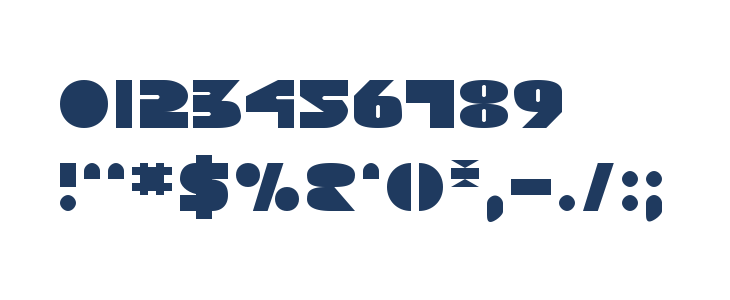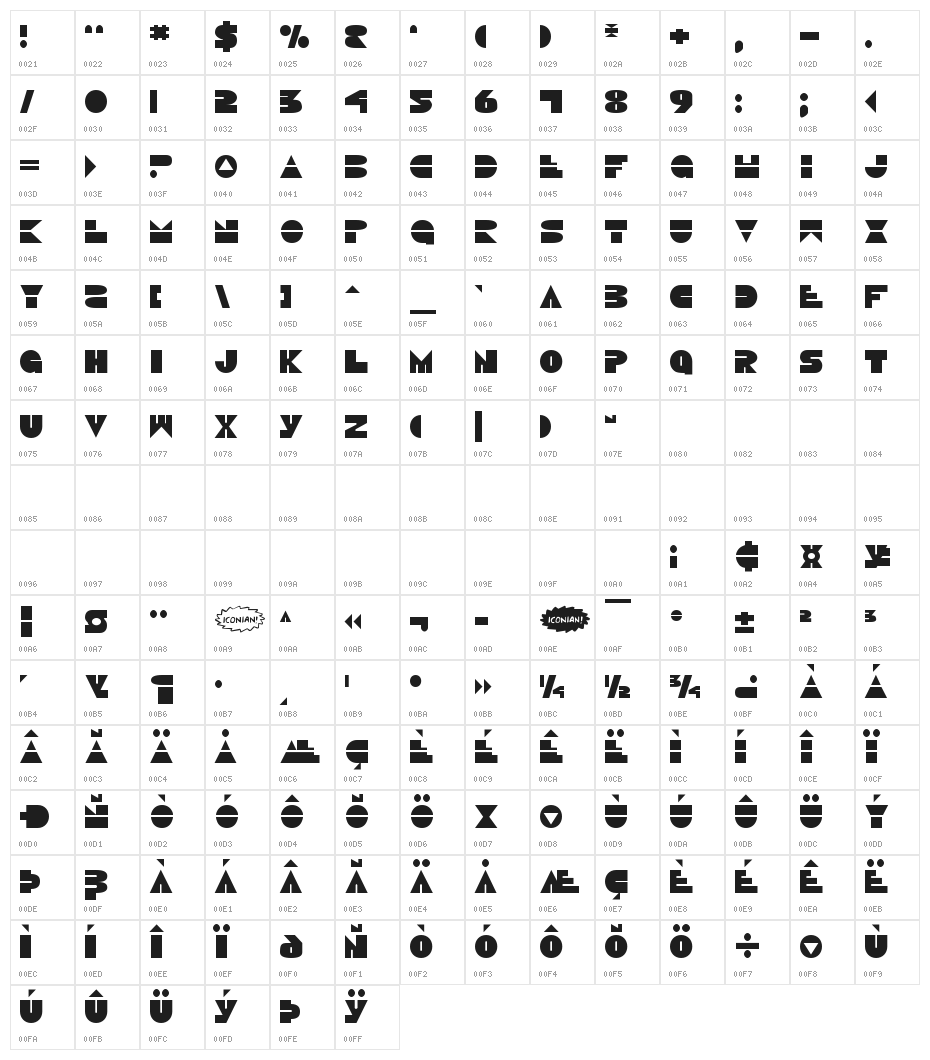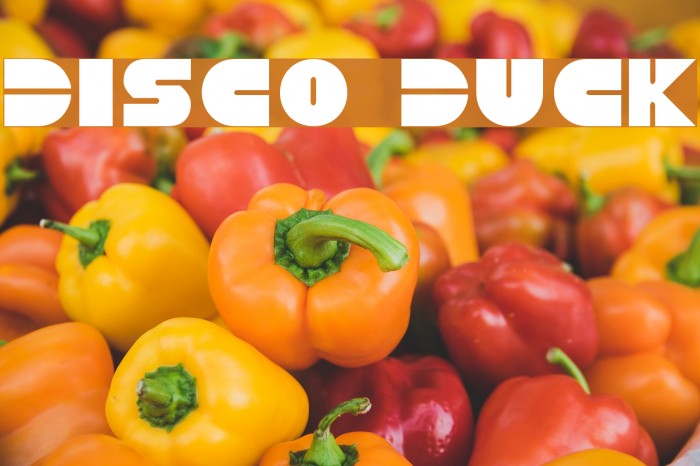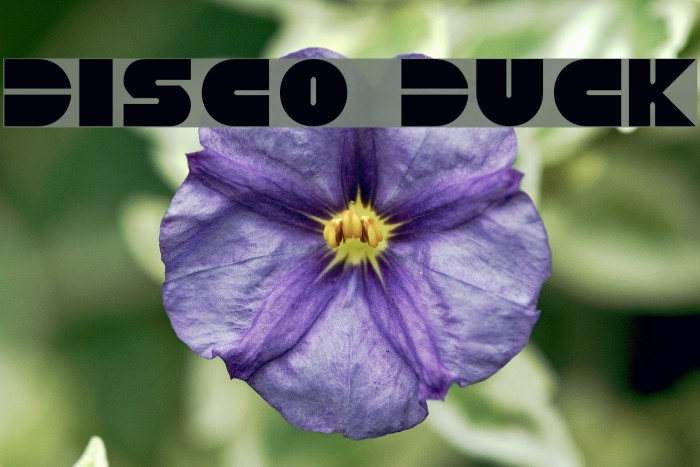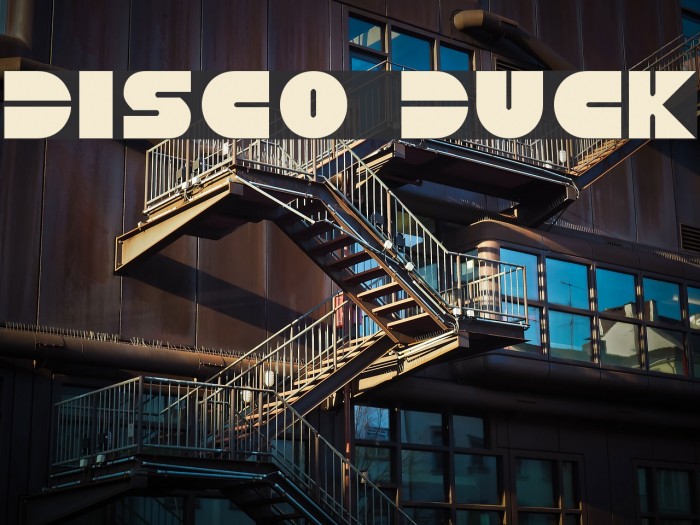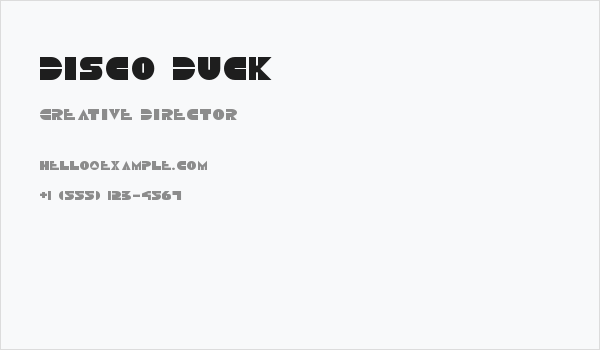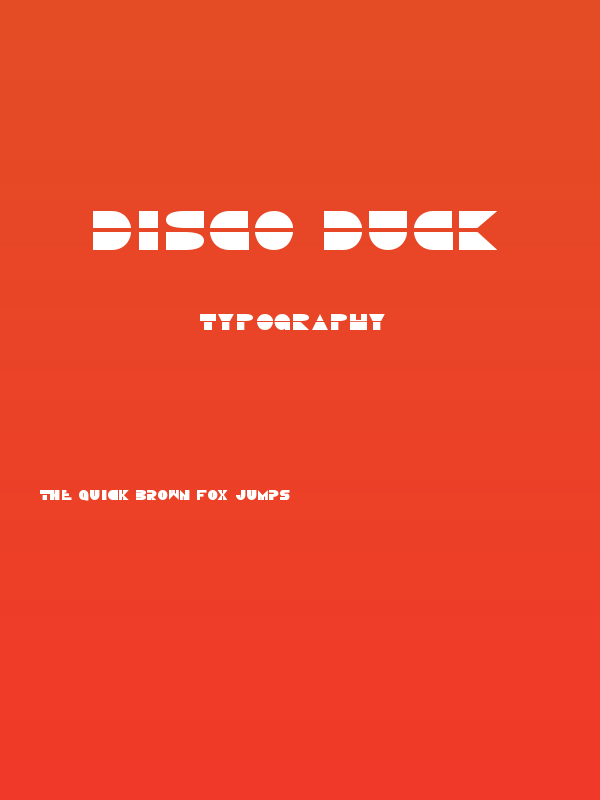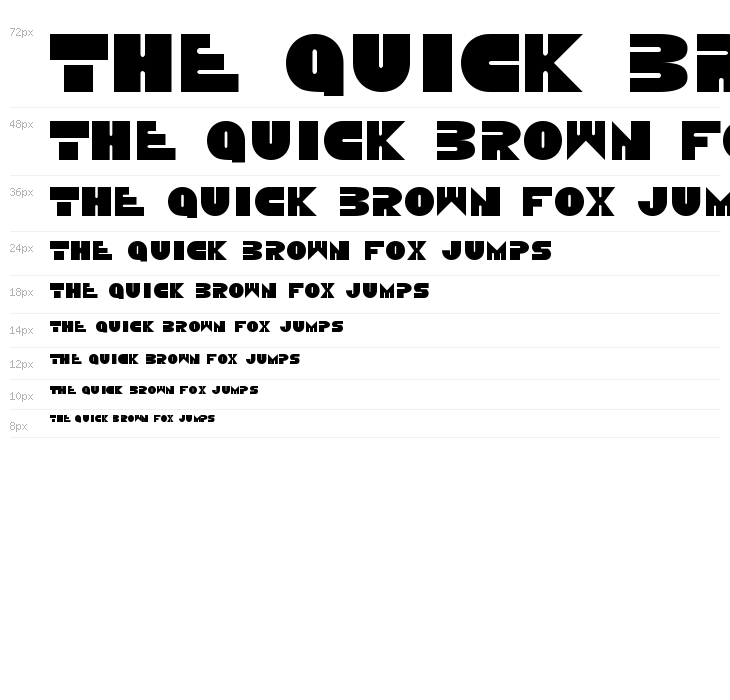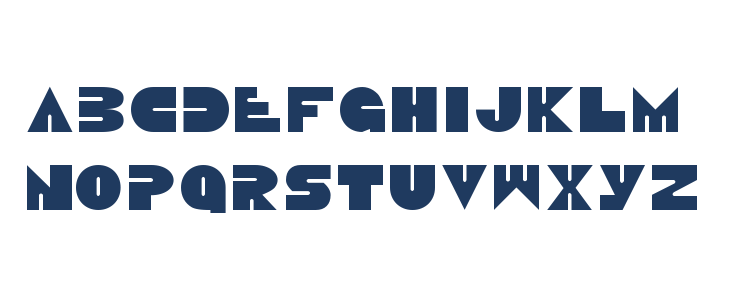
Disco Duck Font
Disco Duck Description
This font features a bold, geometric design with a distinctly modern and playful aesthetic. The characters are constructed with sharp angles and straight lines, creating a sense of movement and energy. The uppercase letters are particularly striking, with unique shapes that make them stand out. The numbers and special characters maintain the same bold and dynamic style, ensuring consistency across all elements. This font is perfect for projects that require a strong visual impact and a contemporary feel.
Proposed ProjectsIdeal for posters, album covers, event flyers, and branding that requires a bold statement.